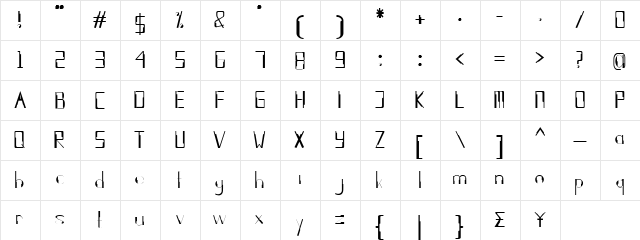
Design Context for kleung Typeface
kleung offers clean, dependable letterforms without strong stylistic allegiance, making it a practical choice for designers who need flexibility.
Pro Tip: Pair kleung with a font of contrasting weight or personality to build a more expressive typographic hierarchy.